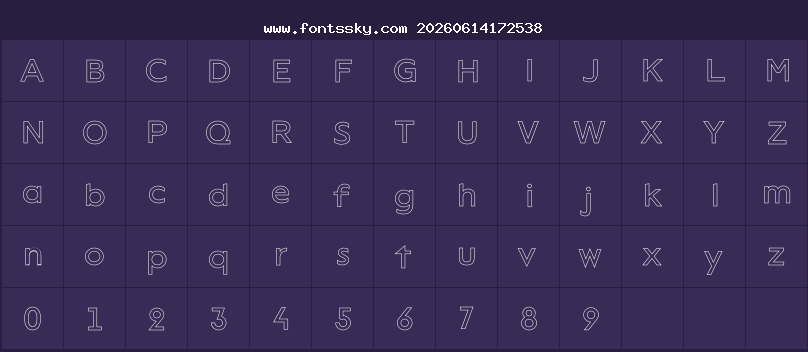
• Font Name: Lack Line
• Full Font Name: Lack Line Regular
• PostScript Name: Lack-Line-Regular
• Designer: Adrien Midzic
About Lack Line.otf
Lack Line.otf is a modern, elegant sans-serif font designed for ultimate readability and visual harmony. Perfect for branding, headlines, web design, and print materials.